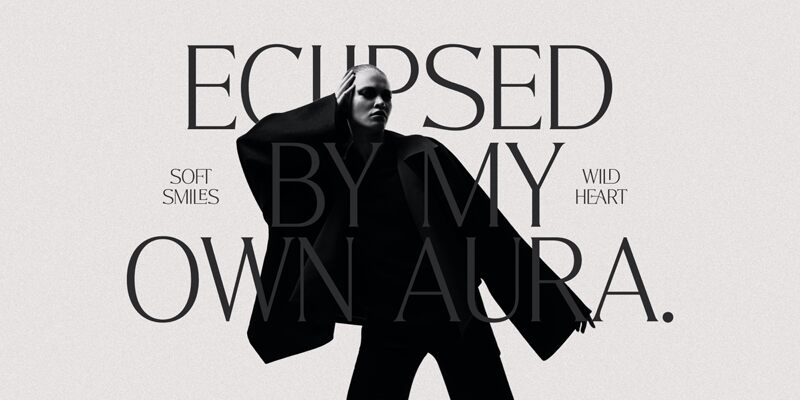
Alisheia font by Dora Typefoundry is an elegant, modern serif typeface with a sophisticated feel to it. Each letter is beautifully crafted with elaborate strokes and details that reflect its refined yet contemporary look. Its stylish vibe can be attributed to its serif nature, which has gone through the designer’s filters to present this unique font to us. Fashion, as well as architecture, are both considered art, and so is Alisheia; that’s why it can be used to represent both even if within a personal project.
Some possible uses for this font can be logos, branding designs, apparel designs, posters, invitations, magazine covers, or packaging designs. Both digital and printed designs can benefit from integrating it. Posters, in particular, will have a vintage look with Alisheia as the primary typeface within them; after all, vintage marketing posters are credited for the origins of many fonts. Although this font features all caps characters, each one is a gem on its own.